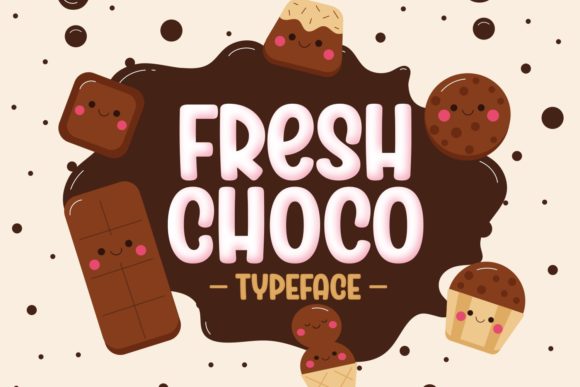
Journey into a world of playful charm with Fresh Choco Font, a display typeface that exudes sweetness and joy. Created by Creative Fabrica Fonts, this font is a confectionery delight, a whimsical dance of letters that brings a smile to your face.
Picture a warm, cozy home filled with the aroma of freshly baked chocolate chip cookies. Fresh Choco Font captures that same essence, evoking feelings of comfort, nostalgia, and pure bliss. Its smooth edges and clean lines dance harmoniously, creating a visual symphony that captivates the eyes.
This font is not just another addition to your collection; it's an experience, a journey into a world where creativity knows no bounds. Unleash your imagination and let Fresh Choco Font guide you through a myriad of design possibilities.
With its versatility, Fresh Choco Font shines in various settings. Whether you're crafting heartwarming invitations, playful posters, or eye-catching social media graphics, this font delivers a touch of magic that elevates your designs.
Imagine a poster for a local bakery, adorned with the delectable curves of Fresh Choco Font. The words "Sweet Treats, Freshly Baked" dance across the page, inviting passersby to indulge in a delightful culinary adventure.
Or envision a whimsical children's book, where the characters come alive through the playful strokes of Fresh Choco Font. The adventures of mischievous fairies and talking animals unfold, captivating young readers with every turn of the page.
The possibilities are endless with Fresh Choco Font. Let your creativity run wild and explore the limitless potential of this enchanting display typeface. Embrace the sweetness, embrace the joy, and let Fresh Choco Font transform your designs into masterpieces that resonate with hearts and minds.